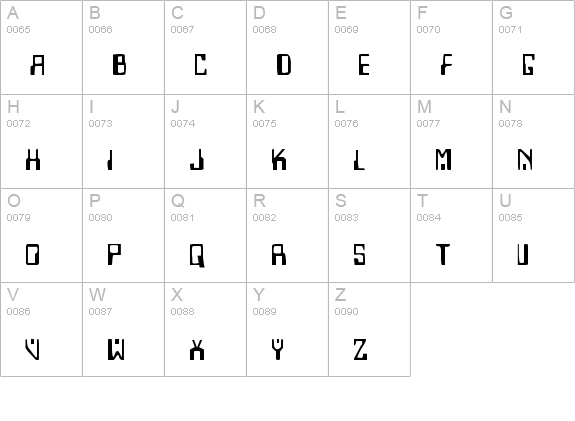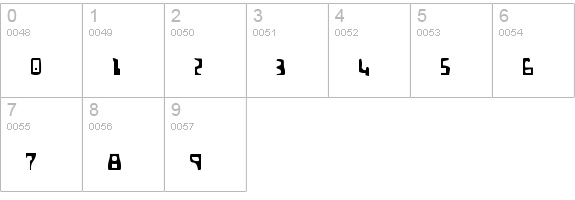
Homemade Robot Font Details
Homemade Robot font is a whimsical and quirky typeface that captures the essence of DIY charm and innovation. With its playful yet modern design, this font is perfect for adding a touch of creativity to your projects. The irregular strokes and charming imperfections give Homemade Robot a unique and handmade feel that will make your text stand out. Best of all, Homemade Robot font is completely free to download at FontsMarket.com. Whether you're working on a personal project or a commercial endeavor, this font is a versatile choice that will add character and personality to your designs. Embrace the world of homemade charm with Homemade Robot font and let your creativity shine.